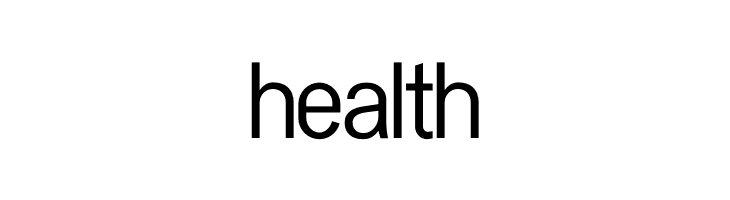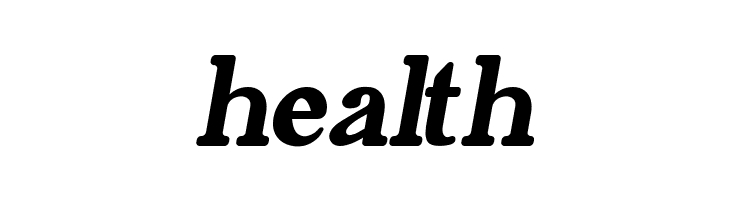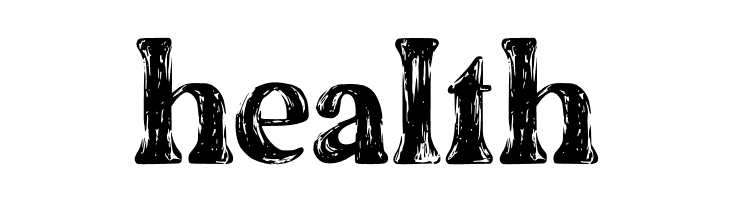
A bold, dynamic script font with a handwritten style.
A bold, condensed sans-serif font with a modern and clean design.
A bold, modern sans-serif font with clean lines and geometric structure.
A modern, geometric sans-serif typeface with uniform stroke widths.
A modern, condensed sans-serif font with uniform stroke width and geometric influences.
A bold, italicized font with a strong, dynamic presence.
A modern, italicized sans-serif font with a sleek and dynamic appearance.
Elegant serif font with an italic slant, ideal for sophisticated designs.
A bold, classic serif font with moderate contrast and slightly condensed proportions.
A bold, hand-drawn serif font with textured, brush-like strokes.